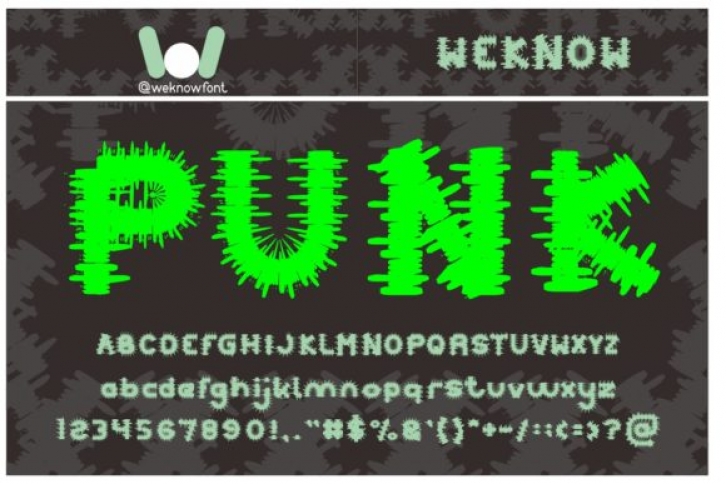
Punk is a fresh and cool display font. Featuring a strong visual effect, this font will instantly make your creation more appealing than any others. Whether you’re using it for crafting, digital designing, presentations or greeting cards making, it’s perfect!